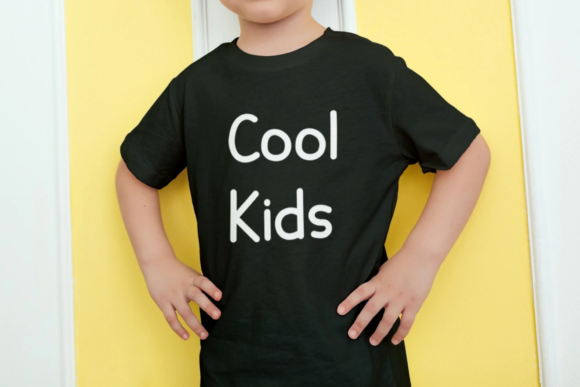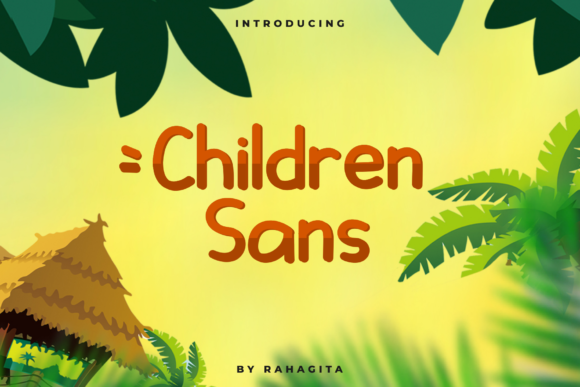
Discover the Charm of Children Sans Font: A Versatile Handwritten Delight
In the realm of typography, few fonts manage to capture the essence of playfulness and elegance simultaneously. Children Sans, a relatively recent addition to the font family, has quickly become a favorite among designers and crafters alike. This fantastic handwritten font is best suited for headlines of all sizes, as well as for blocks of text that have both maximum and minimum variations. Whether it’s for web, print, moving images, or anything else, Children Sans will look spectacular.
What Makes Children Sans Stand Out?
Children Sans boasts a unique blend of casualness and sophistication, making it an incredibly versatile font. Its handwritten nature gives it a personal and approachable feel, perfect for projects that require a touch of warmth and friendliness. At the same time, its clean lines and balanced proportions ensure that it remains legible and visually appealing, even at smaller sizes.
One of the key features that set Children Sans apart is its adaptability. This font shines in a variety of applications, from digital media to print materials. For web designers, Children Sans can add a refreshing touch to website headers, blog posts, and social media graphics. Print enthusiasts will love how it brings a personal flair to posters, flyers, and brochures. Moreover, its compatibility with moving images makes it an excellent choice for video content creators looking to add a textual element to their work.
Using Children Sans for Headlines and Body Text
Children Sans’s real strength lies in its ability to perform exceptionally well in both headlines and body text. For headlines, its bold and expressive strokes can make a significant impact, drawing the reader’s attention instantly. The font’s unique character ensures that your titles stand out, making it perfect for posters, advertisements, and any material where you want to make a statement.
When it comes to body text, Children Sans proves to be remarkably legible. Its clear and flowing script makes reading a pleasant experience, even over longer passages. This aspect is particularly beneficial for digital content, where keeping the reader engaged is crucial. The font’s readability ensures that your message is conveyed effectively, without compromising on aesthetics.
| Font Name | Children Sans Font |
| Author | Rahagita Studio |
Children Sans is more than just a font; it’s a tool that can elevate your design projects to new heights. Its unique blend of playfulness and elegance, combined with its versatility and readability, makes it an excellent choice for a wide range of applications. Whether you’re a professional designer or a crafter looking for that special touch, Children Sans is sure to impress.